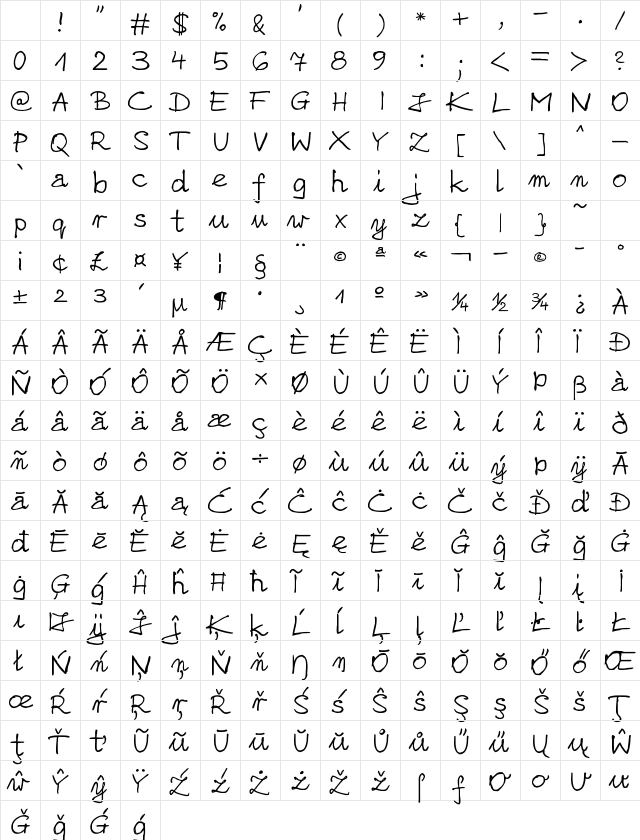
Complete zai Nicolas Sloppy Pen Regular glyph index. Displaying only characters natively supported by zai Nicolas Sloppy Pen Regular font.
zai Nicolas Sloppy Pen is a composed and adaptable typeface that performs quietly and consistently across a wide range of design contexts.